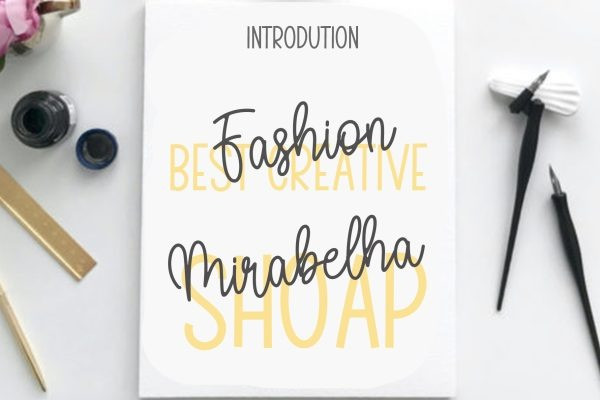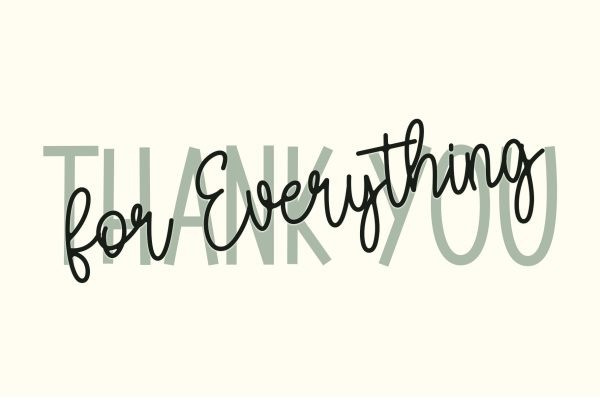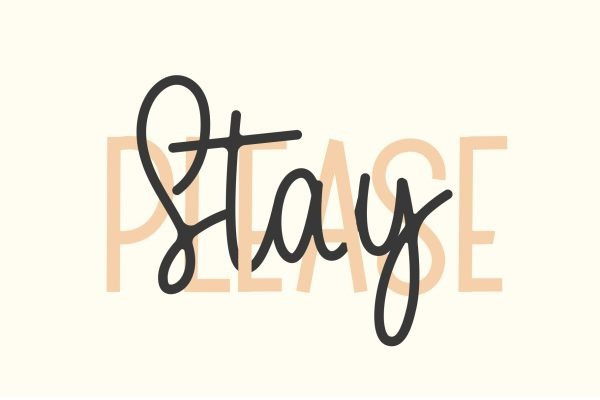
Hello Sagitarius Font
Hello Sagitarius Font consists of two fonts designed to complement each other perfectly. Together or apart, these fonts are ideal for adding a chic and cheery touch to your crafts.
Hello Sagitarius is perfect for branding projects, logo, wedding designs, social media posts, advertisements, product packaging, product designs, label, photography, watermark, invitation, stationery and any projects that need handwriting taste.